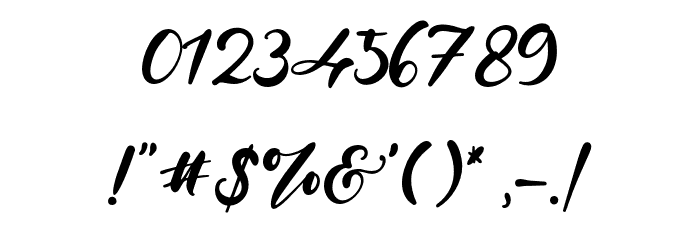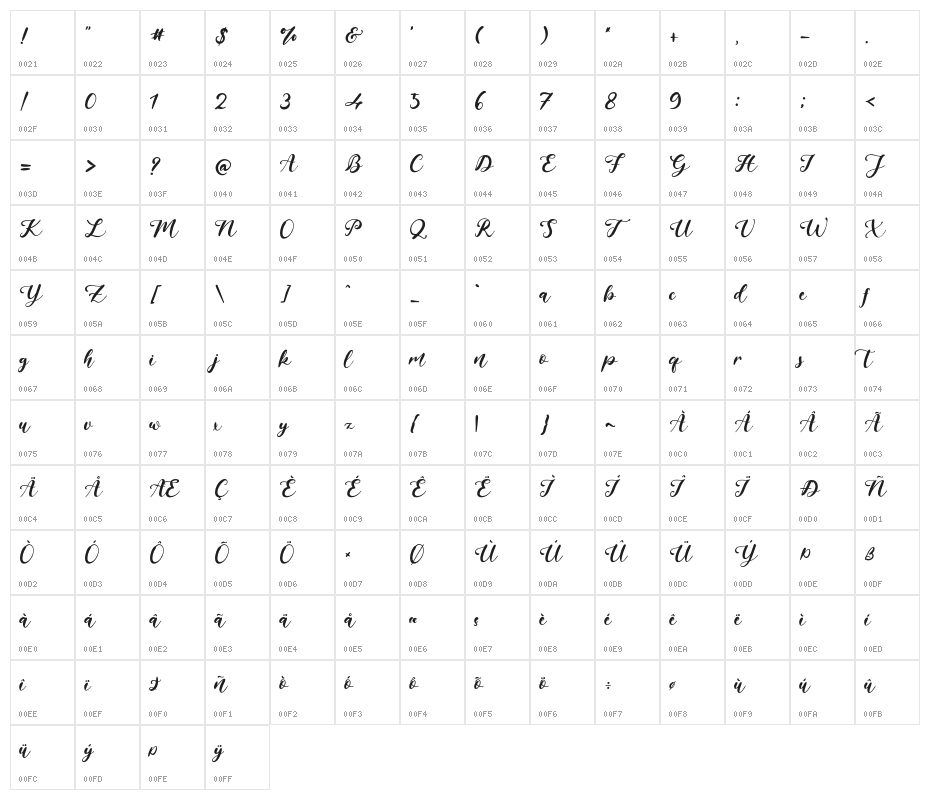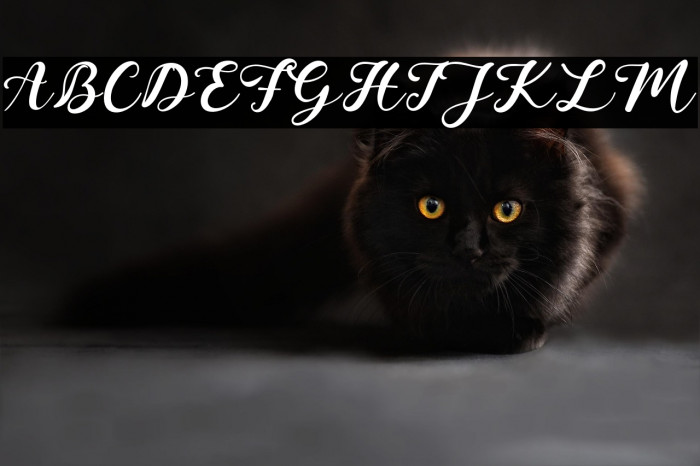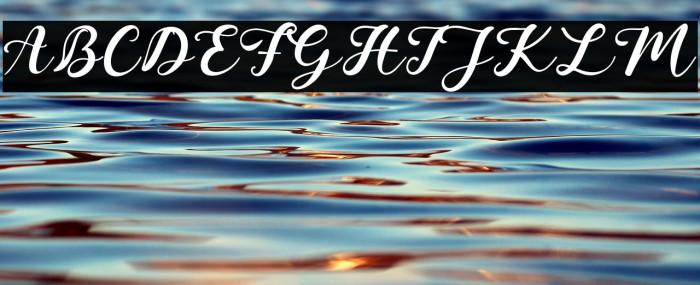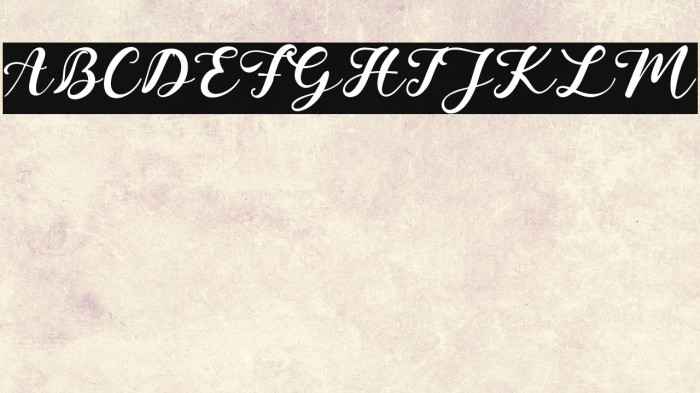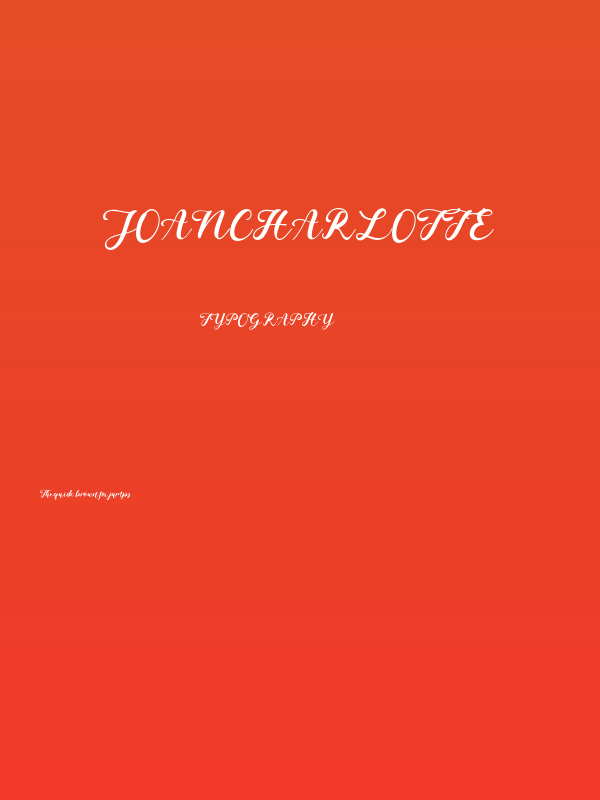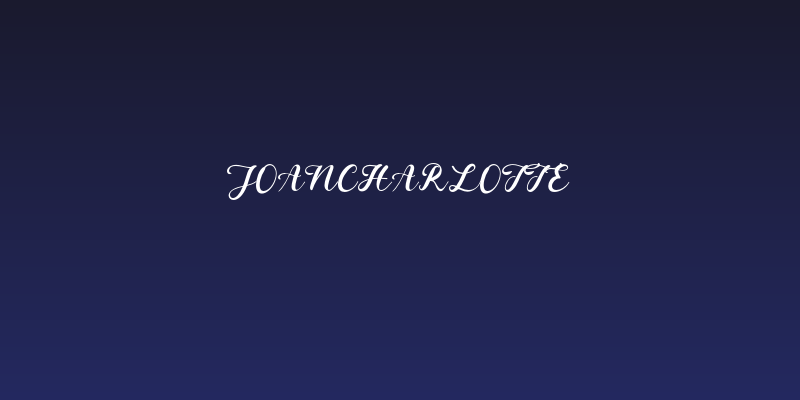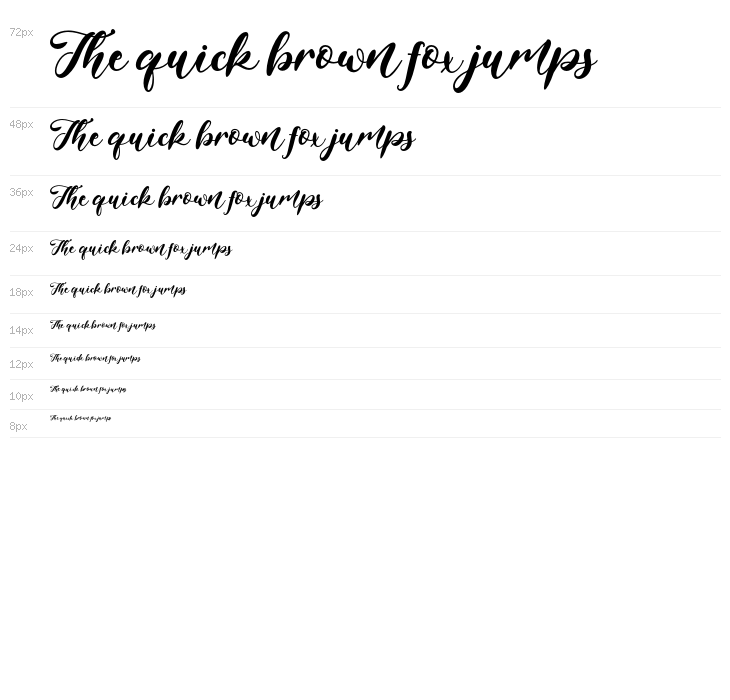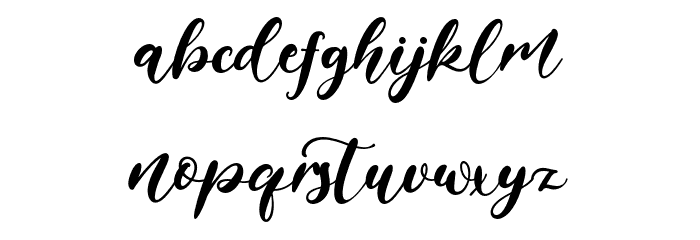
JoanCharlotte Font
JoanCharlotte Description
This elegant script font features fluid, connected strokes that mimic the natural flow of handwriting. The uppercase letters are ornate and slightly larger than the lowercase, adding a touch of sophistication. The lowercase letters maintain a consistent baseline, with some characters extending slightly below, enhancing the handwritten feel. Numbers are clear and legible, while special characters are styled to match the overall aesthetic. The font's smooth curves and balanced proportions make it suitable for a variety of design applications, offering both beauty and readability.
| Overall Style | Elegant |
| Use Case | Logos, Invitations, Greeting Cards |
| Proposed Projects | Ideal for wedding invitations, greeting cards, branding, and elegant packaging designs. |